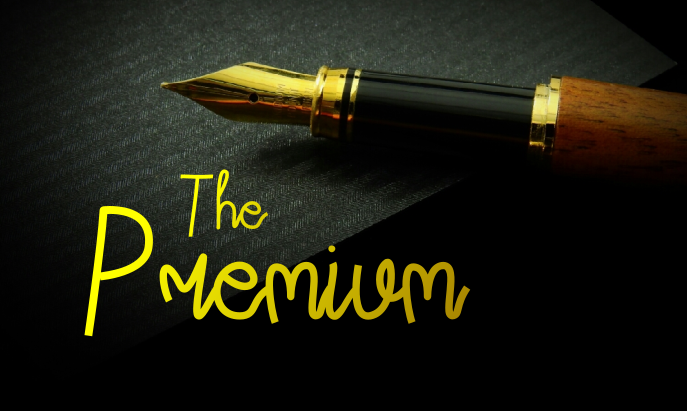
This font is suitable for lettering, invitation, or any your packaging product that need classy and stylish font. Enjoy it. if you like my works, mind about commercial license at : https://shrinke.me/TamasyaFont Thank You |